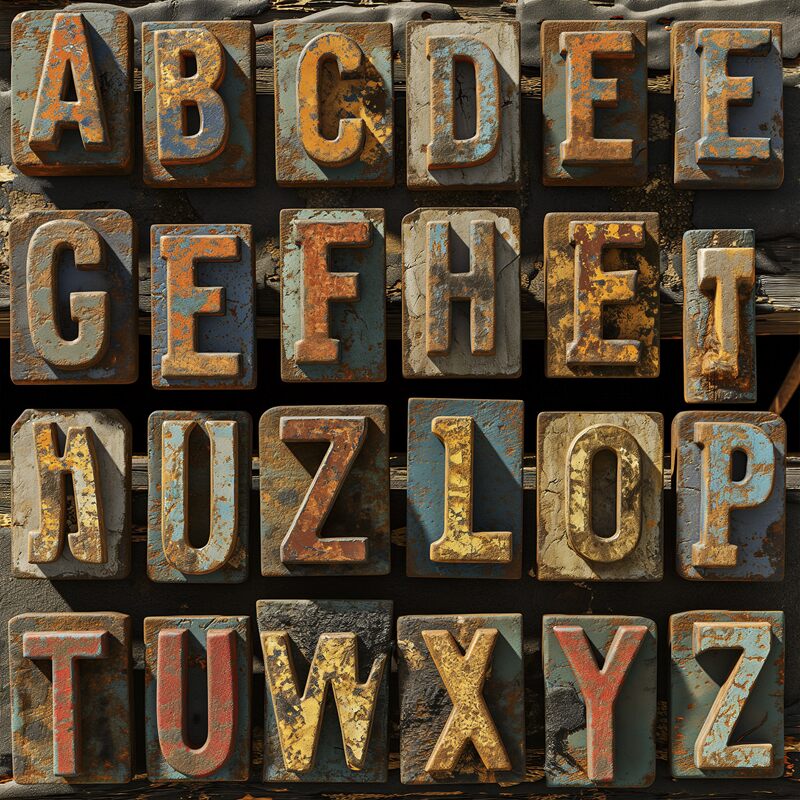
Seven And Storm Ektor emerges as a distinctive display font that exudes an air of vintage authenticity. Designed by Dimitri Castrique, this font finds its roots in the old lettering seen on rusty wooden boards and metal plates, giving it an eroded style that is rich with character. It's condensed width creates a sophisticated yet rugged appearance that commands attention.
The Seven And Storm font family boasts of this particular style that encapsulates both nostalgia and edginess. It's perfect for designers looking to infuse their work with a sense of history and texture without sacrificing readability. Whether it's branding, poster design, or creative editorial work, Seven And Storm Ektor lends itself to projects aiming for an aesthetic that resonates with stories and time-worn charm.
The real interest and added value of this font comes from its SVG version (already in color and fully embossed).
Seven And Storm Ektor
Dimitri Castrique
Seven And Storm is a vintage font based on old lettering mounted on rusty wooden boards and/or metal plates.